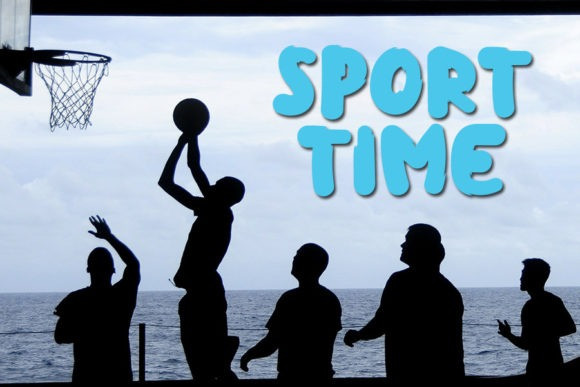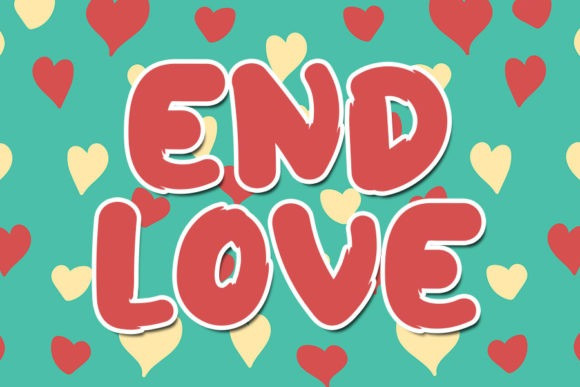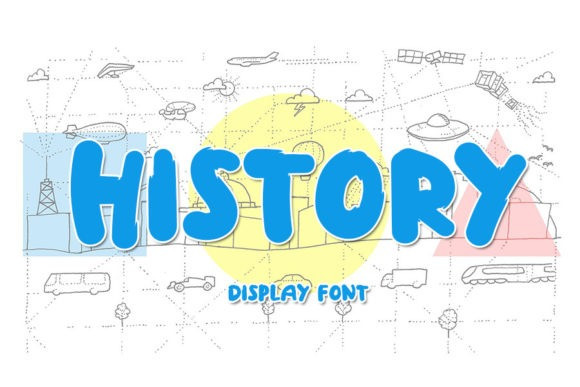
History Display Typeface
History Display Typeface, is a cool, paint brushed and friendly display font. Add this thick lettered font to your favorite creations related to school or children, and you will love the playful and cute results.